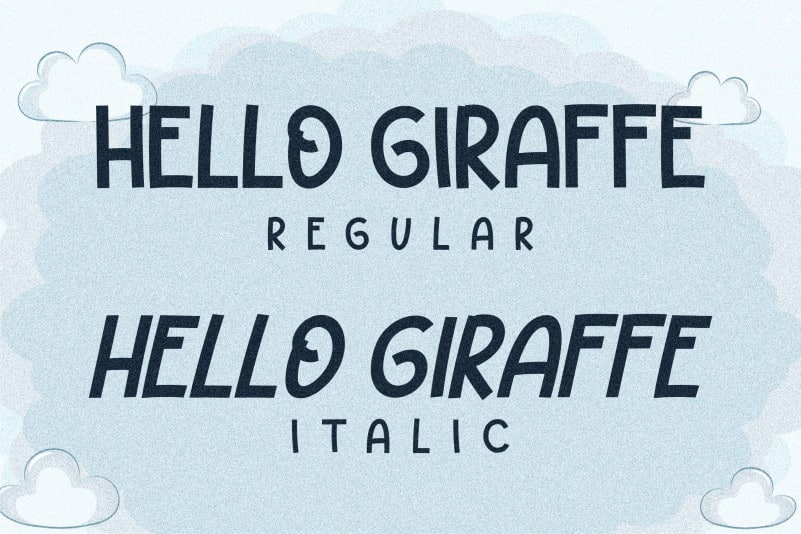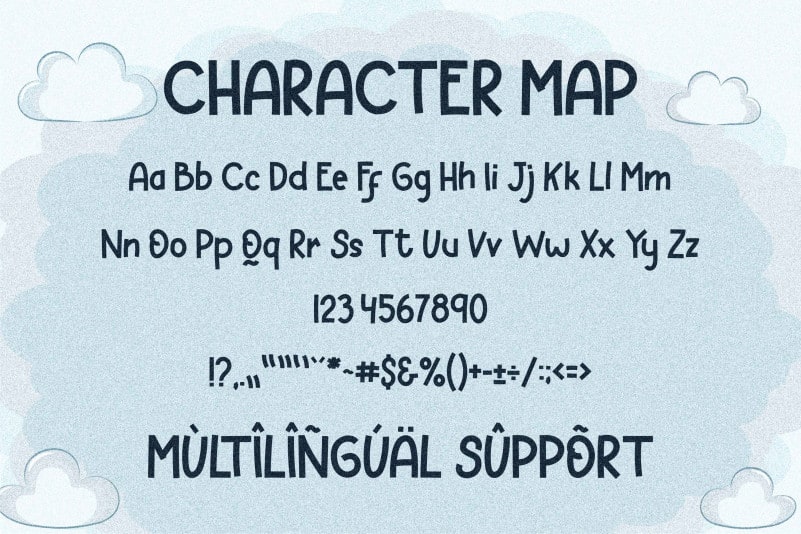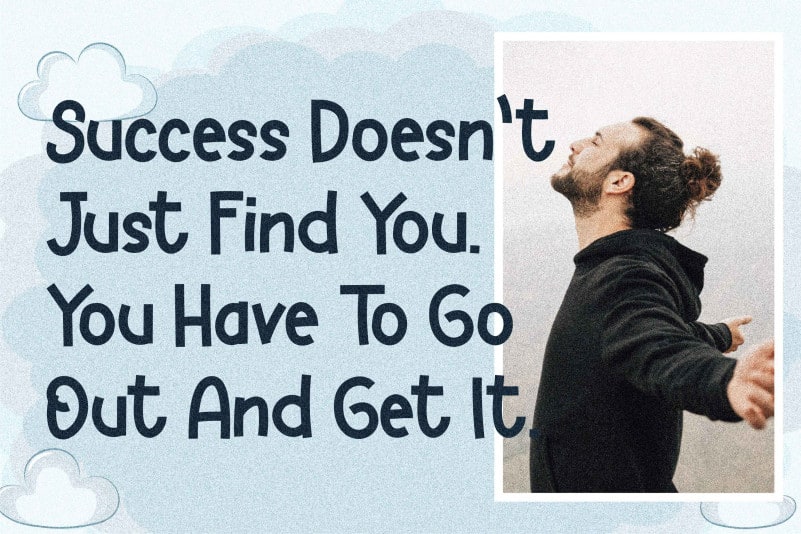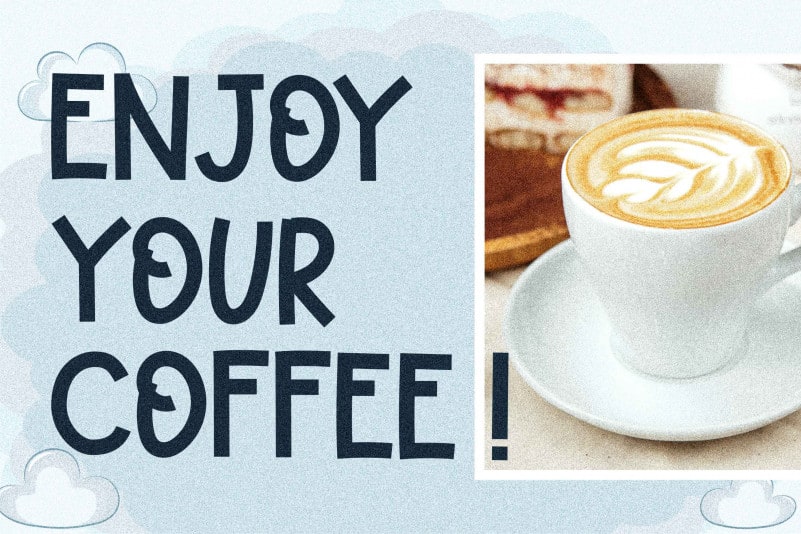
Hello Giraffe Display Font
Hello Giraffe Display Font is a quirky and strong lettered display font. Add it confidently to your projects, and you won’t be disappointed.